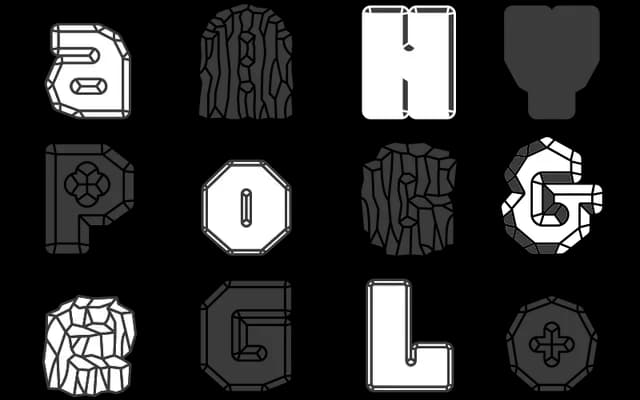
A gemstone-themed display typeface in two styles, Cut and Rough, with colour font and variable font versions tracing the full journey of a faceted stone from mine to market.
Schijn divides into two distinct styles: Cut, with 16 styles across Shallow, Middle and Deep cuts, and Rough, with 9 styles evoking unpolished stone. The family includes dingbats, small capitals, old style numerals and stylistic alternates across 580 characters, with European Latin language support throughout. The Complete package adds colour font versions of both Cut and Rough styles, plus a variable font version of Cut.
Schijn is a display typeface with heavily stylised letterforms modelled on faceted gemstones, making it an ornamental decorative display font with no conventional body text application.